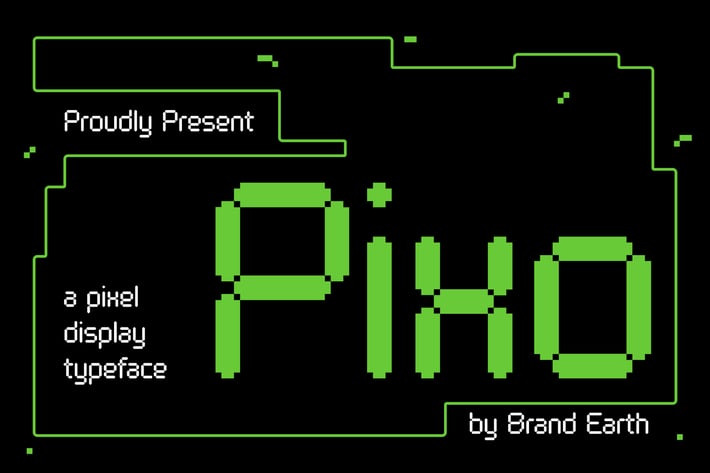
Pixo Pixel Font
Pixo is a pixel display typeface inspired by retro gaming and digital system aesthetics. With its chunky, grid-based letterforms and nostalgic bitmap feel, Pixo instantly transports your design back to the era of 8-bit arcade machines and early computer interfaces. Each character is carefully constructed with modular square units, making it ideal for bold display usage. Whether you’re crafting retro game titles, futuristic visuals, or stylized tech graphics, Pixo delivers a fun, quirky, and digital-forward personality.
Relevance and Use Cases Pixo is ideal for use in pixel-based designs, retro-style posters, arcade-inspired games, technology branding, modern futuristic layouts, and digital product packaging. This font excels in video game UI, screen-based interfaces, tech-themed logos, and even cyberpunk-inspired visuals. Suitable for y2k fonts aesthetics, fun fonts categories, and symbol-driven pixel art, Pixo fits well in modern bold typographic compositions. It’s also a great match for app icons, NFT artwork, t-shirt designs, and digital culture visuals that play with nostalgia and innovation.
Main Features
Uppercase & Lowercase characters
* Numeral & Punctuations